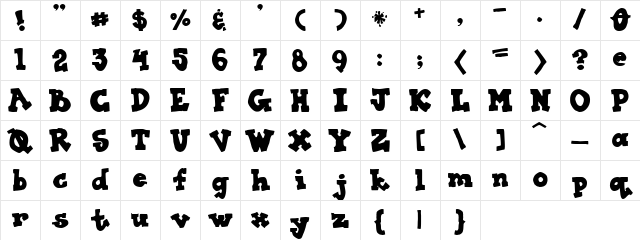
DJ Spaz Regular
Design Context for DJ Spaz
DJ Spaz is a composed and adaptable typeface that performs quietly and consistently across a wide range of design contexts.